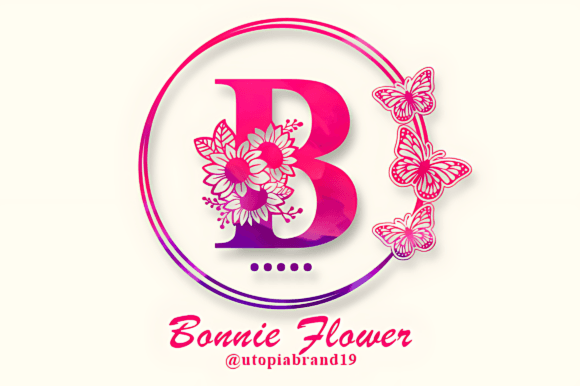
The Bonnie Flower Monogram Font: A Charming Addition to Your Design Projects
I’ll never forget the time I was working on a wedding invitation project, and my client asked for a font that was ” elegant, yet playful” and “had flowers.” I scoured the internet, tried countless fonts, but nothing seemed quite right. That was until I stumbled upon the Bonnie Flower Monogram Font. It was love at first sight! 💕
This pretty font features decorative letters adorned with floral designs, and each letter is beautifully shaped and surrounded by flowers. It’s perfect for adding a charming and personal touch to invitations, cards, and other projects. In this article, I’ll share my experience with the Bonnie Flower Monogram Font, its features, and how to make the most of it in your design projects.
• ✨ Elegant and playful design that combines perfectly with floral elements
• ✅ Beautifully crafted letters that add a personal touch to any project
• 💐 Fresh and lovely look that’s perfect for spring and summer designs
• 🎨 Versatile font that can be used for a variety of projects, from invitations to social media graphics
While I adore the Bonnie Flower Monogram Font, there are a few things to keep in mind:
• ⚠️ The font may not be suitable for very small text sizes, as the details may get lost
• 🤔 Some letters may require manual kerning for optimal spacing
The Bonnie Flower Monogram Font was designed with the intention of bringing a touch of nature and elegance to design projects. The creator of the font was inspired by the beauty of flowers and the art of traditional lettering. The result is a font that’s both refined and playful, perfect for a variety of creative projects.
Q: What type of projects is the Bonnie Flower Monogram Font best suited for?
A: The Bonnie Flower Monogram Font is perfect for projects that require a touch of elegance and playfulness, such as wedding invitations, birthday cards, and social media graphics.